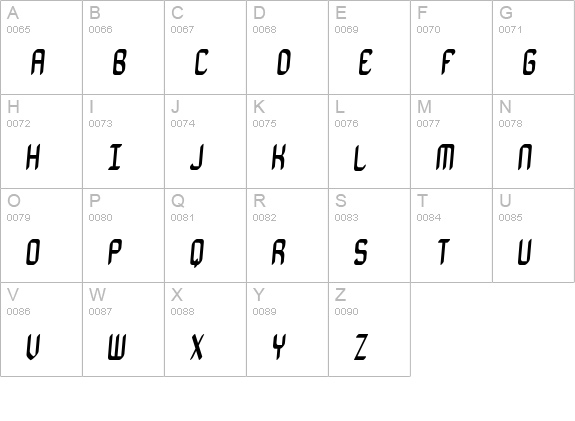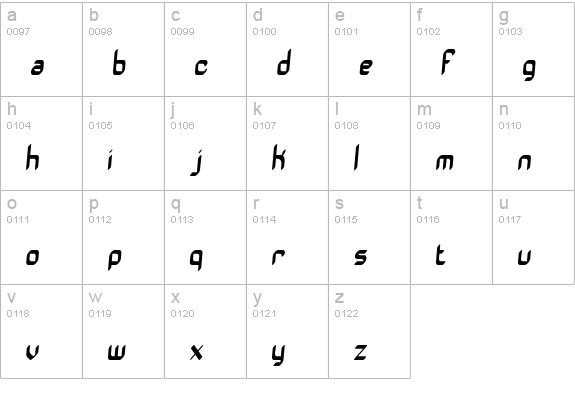
Vantage BRK Font Details
Vantage BRK is a modern and stylish font that exudes elegance and sophistication. With its clean lines and sleek design, this typeface is perfect for adding a touch of class to any project. Whether you're designing a logo, creating a website, or crafting a marketing campaign, Vantage BRK is sure to make a lasting impression. And the best part? Vantage BRK is completely free to download! That's right, you can get your hands on this stunning font at no cost by visiting FontsMarket.com. So why wait? Add Vantage BRK to your font collection today and elevate your designs to the next level.